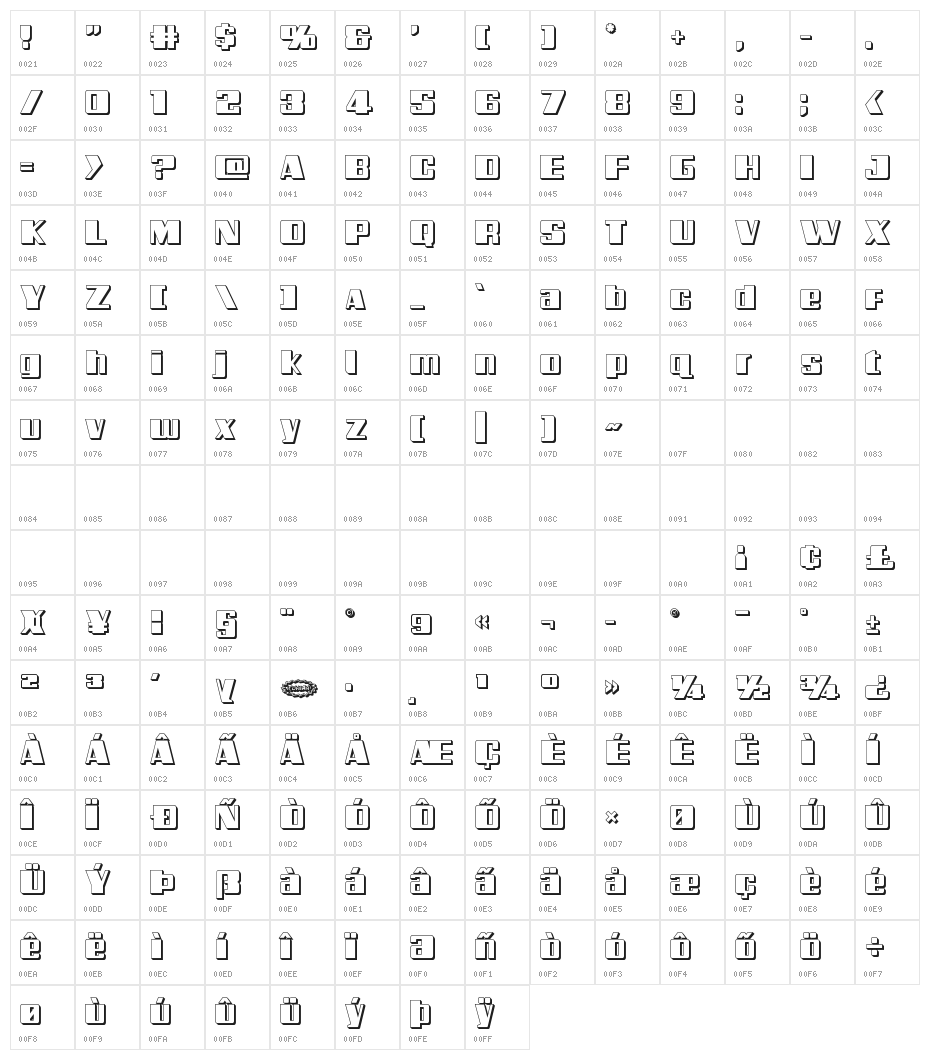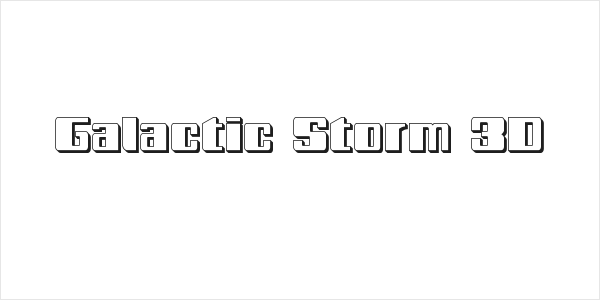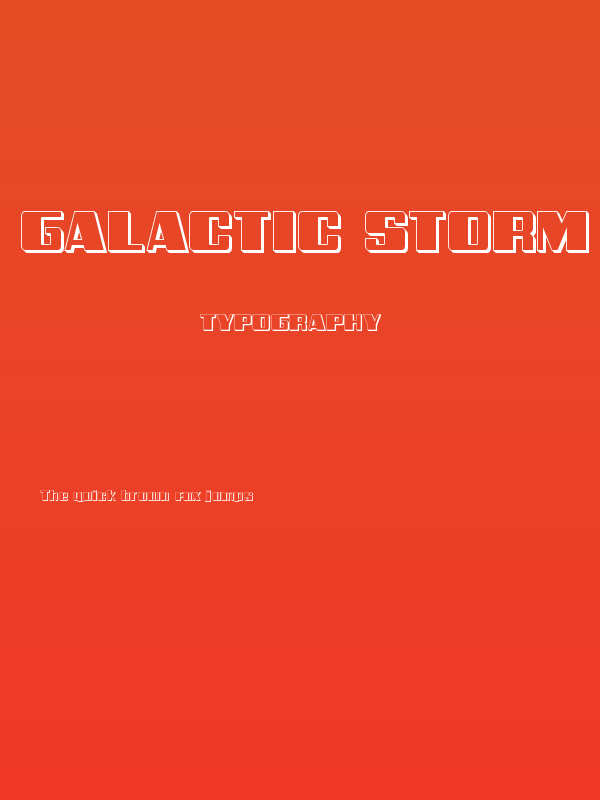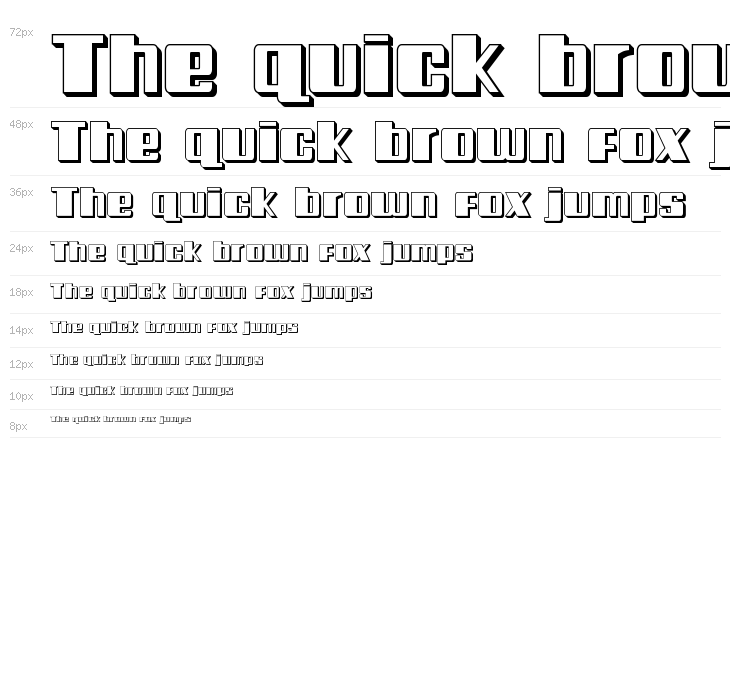
Galactic Storm 3D Font
Galactic Storm 3D Description
This font features a bold, three-dimensional appearance with a futuristic and geometric style. The characters are outlined with a thick border, giving them a strong and impactful presence. The design incorporates sharp angles and clean lines, creating a sense of depth and movement. The uppercase and lowercase letters maintain a consistent style, with the lowercase slightly smaller but equally bold. Numbers and special characters follow the same design principles, ensuring uniformity across all glyphs. This font is ideal for projects that require a modern and dynamic look, such as sci-fi themes, gaming titles, or tech-related branding.
| Proposed Projects | Perfect for sci-fi themes, gaming titles, tech branding, and dynamic posters. |